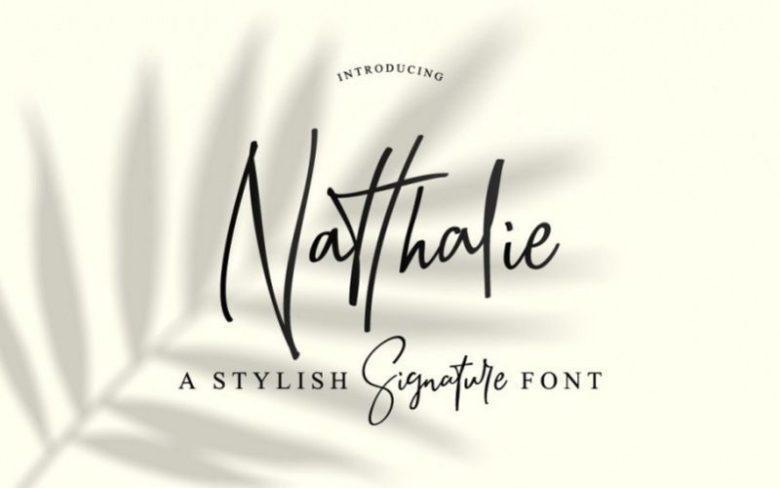
Natthalie Handwritten Font
Hello, Please contact us before commercial use. Natthalie Signature a new fresh & modern script with a handmade calligraphy style, decorative characters and a dancing baseline! So beautiful on invitation like greeting cards, branding materials, business cards, quotes, posters, and more!!